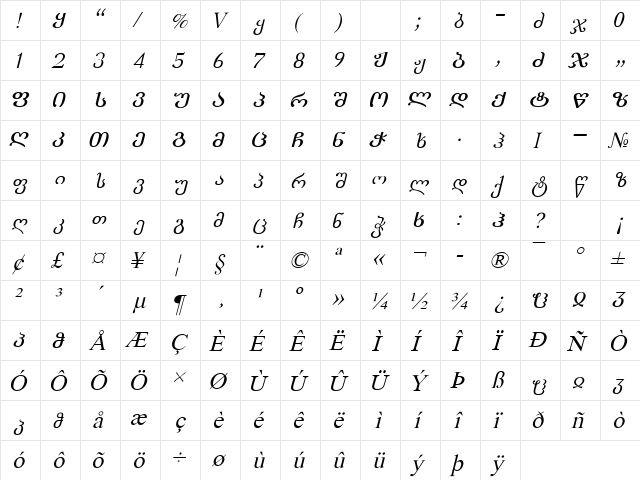
Literaturuli-TD Italic
Design Context for Literaturuli-TD Typeface
Literaturuli-TD takes a measured approach to typography — its balanced proportions and neutral character make it a reliable workhorse for both digital and print work. Its italic angle brings a sense of urgency and motion to the letterforms.
Pro Tip: Use Literaturuli-TD for emphasis, pull quotes, and subheadings where its slanted energy can add rhythm to the layout.